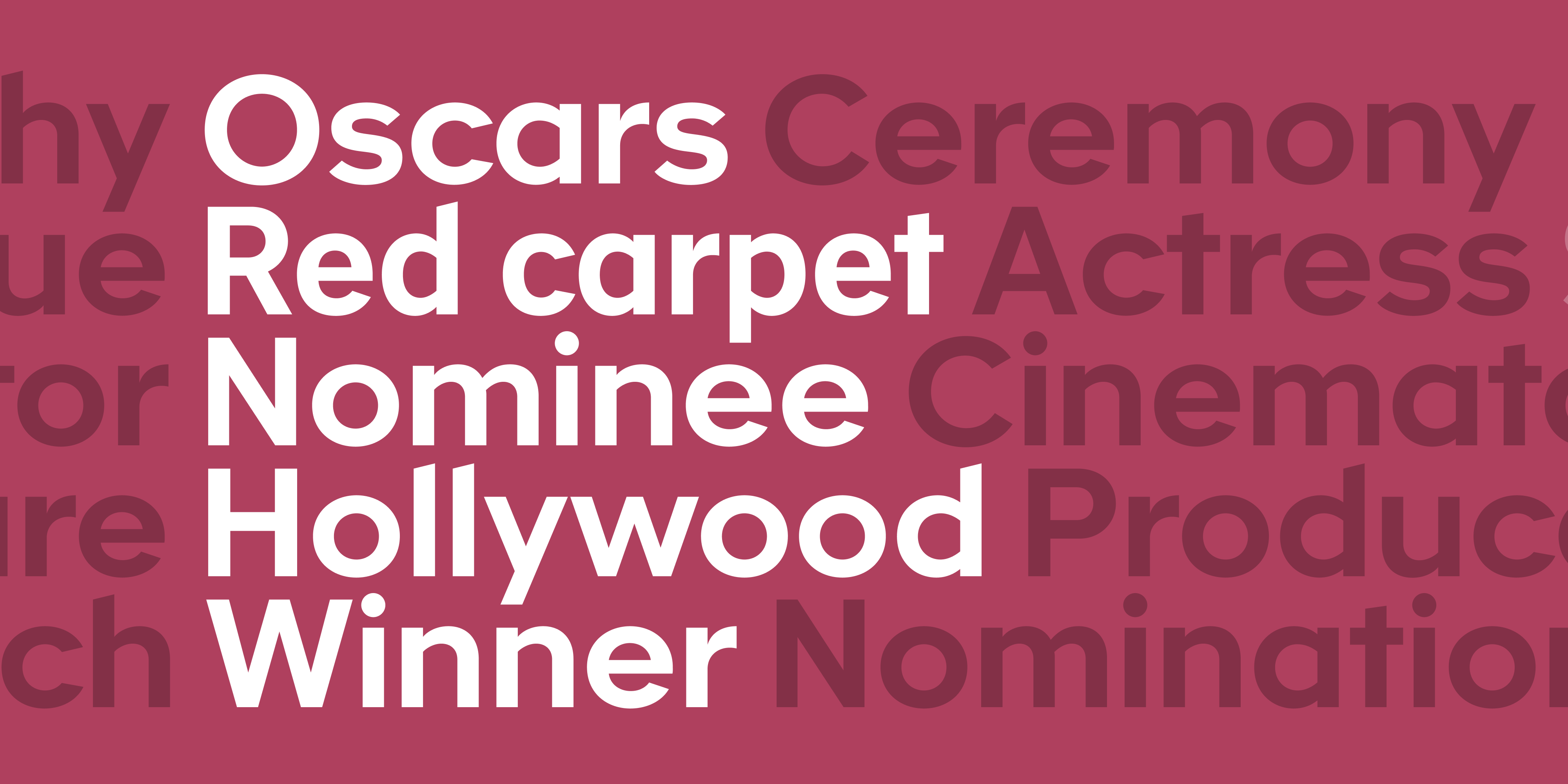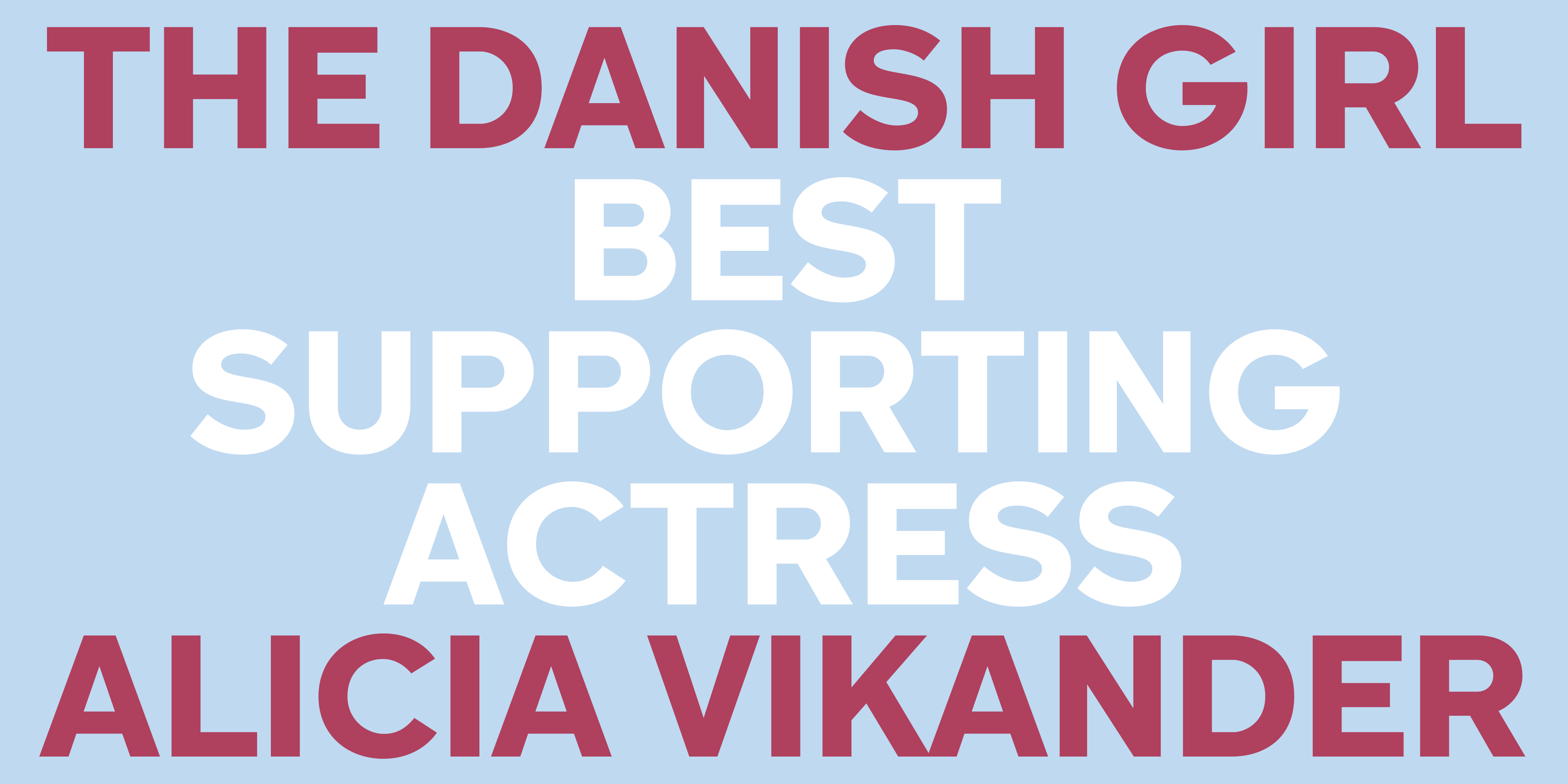
The enlarged width in the Academy Sans Expanded adds a more open and airy feel to the texture. The geometric form becomes more distinct and makes the appearance more voluminous and generous, jet elegant and balanced. It works very convincing for titles
The Round geometric feel, makes it very volumess, generous especially in the bolder weights.